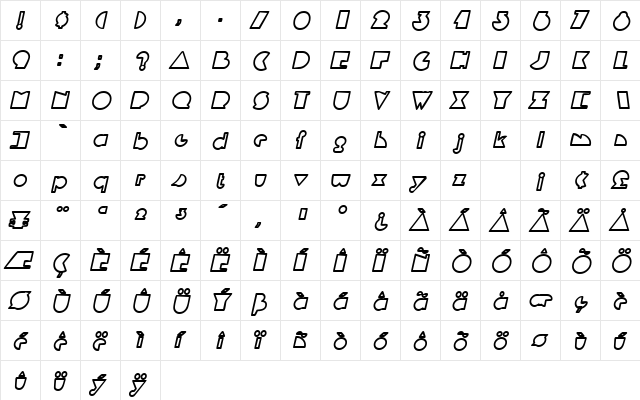
DeltaOutlineSSK BoldItalic Font Preview
Design Context for DeltaOutlineSSK Typeface
DeltaOutlineSSK brings ornamental detail and strong personality to headlines and identities, where visual impact matters more than quiet functionality. Its italic angle brings a sense of urgency and motion to the letterforms. Its bold stroke weight gives it real presence on the page.
Font Pairing: Pair with a clean neutral sans-serif for body copy to let DeltaOutlineSSK's character lead without overwhelming the composition.
Pro Tip: Treat DeltaOutlineSSK as the centrepiece of your typographic hierarchy. One strong heading set in a decorative face can carry an entire layout.